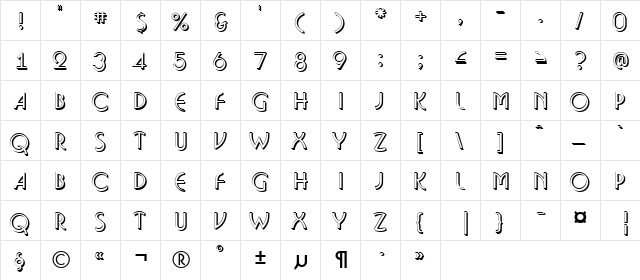
a_BosaNovaSh Regular Font Preview
a_BosaNovaSh Regular
a_BosaNovaSh Regular Font Details
Design Context for a_BosaNovaSh Typeface
a_BosaNovaSh is a composed and adaptable typeface that performs quietly and consistently across a wide range of design contexts.